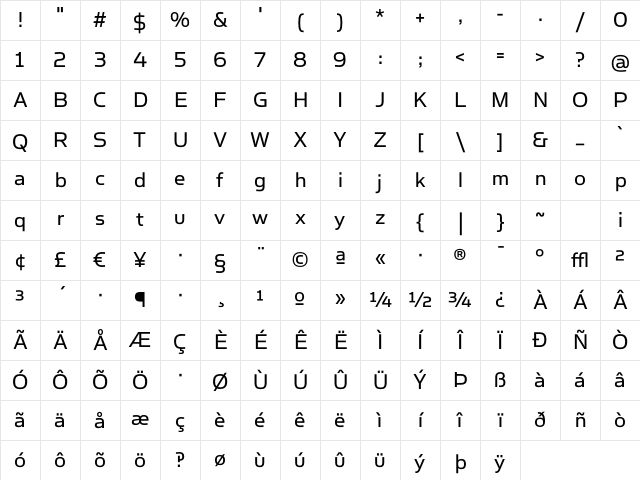
SimianText Orangutan Free Font
SimianText Orangutan
Style: Orangutan
SimianText Family
SimianText Orangutan
Design Context for SimianText
SimianText is a composed and adaptable typeface that performs quietly and consistently across a wide range of design contexts.